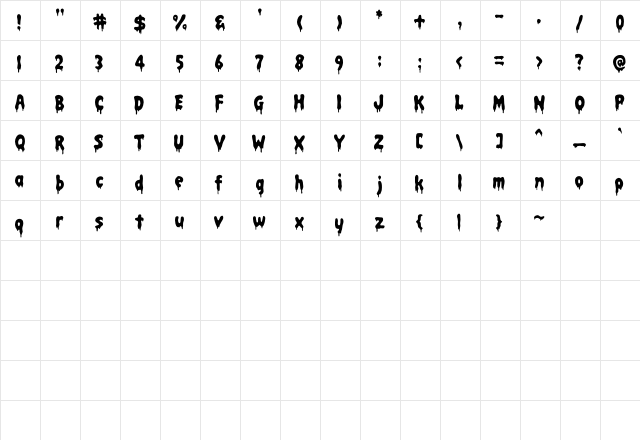
Bacon Regular
Design Context for Bacon Typeface
Bacon is a composed and adaptable typeface that performs quietly and consistently across a wide range of design contexts.